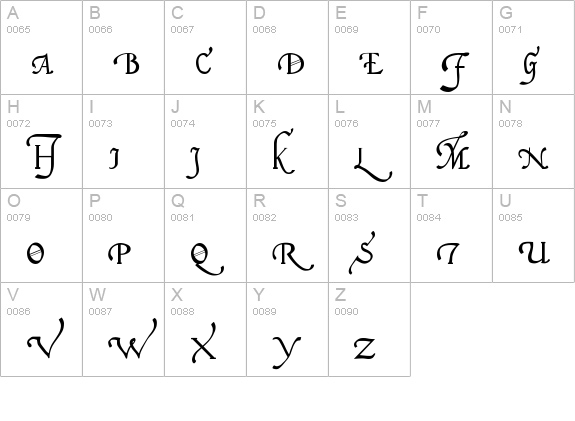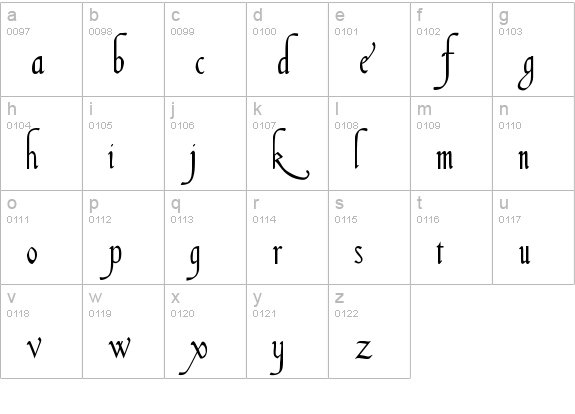
Italian Cursive, 16th c. Font Details
Italian Cursive, 16th c. font is a beautifully crafted typeface that captures the essence of the Italian Renaissance. This font is a true testament to the elegance and sophistication of the 16th century handwriting style, showcasing its flowing, graceful curves and delicate strokes. Designed with meticulous attention to detail, Italian Cursive, 16th c. font captures the essence of handwritten scripts from the golden age of Italian calligraphy. Its timeless charm and intricate letterforms make it a perfect choice for projects that require a touch of historical authenticity. This font is truly a work of art, meticulously crafted to bring the beauty of Italian cursive script to life. Each letter has been carefully designed to resemble the fluid strokes of a skilled calligrapher's pen, making it a visually stunning choice for any project. Italian Cursive, 16th c. font is freely available to download at FontsMarket.com, allowing you to bring the elegance of this historical script to your designs with ease. Whether you are creating invitations, book covers, or simply adding a touch of sophistication to your personal projects, this font will elevate your work to new heights. With its freely flowing lines and intricate details, Italian Cursive, 16th c. font is sure to captivate and inspire. Its versatility allows it to be used in a variety of contexts, from formal documents to creative designs, making it a must-have in any designer's toolkit. Download Italian Cursive, 16th c. font now from FontsMarket.com and embark on a journey through time, where the beauty of Italian calligraphy is at your fingertips. Experience the freedom of this exquisite font and let your creativity soar to new heights.